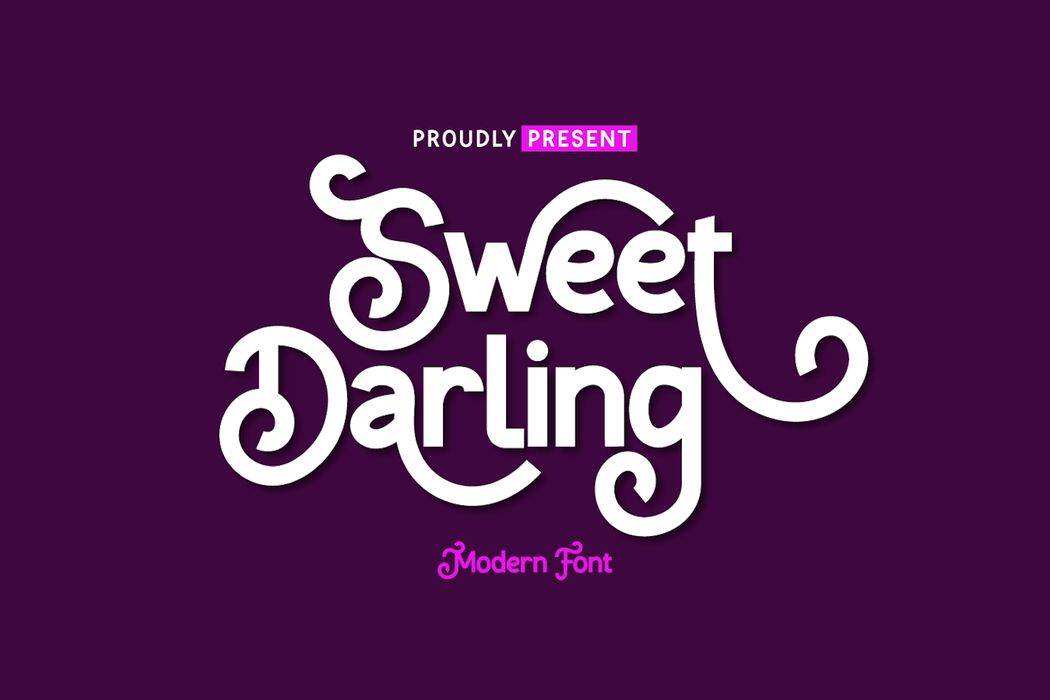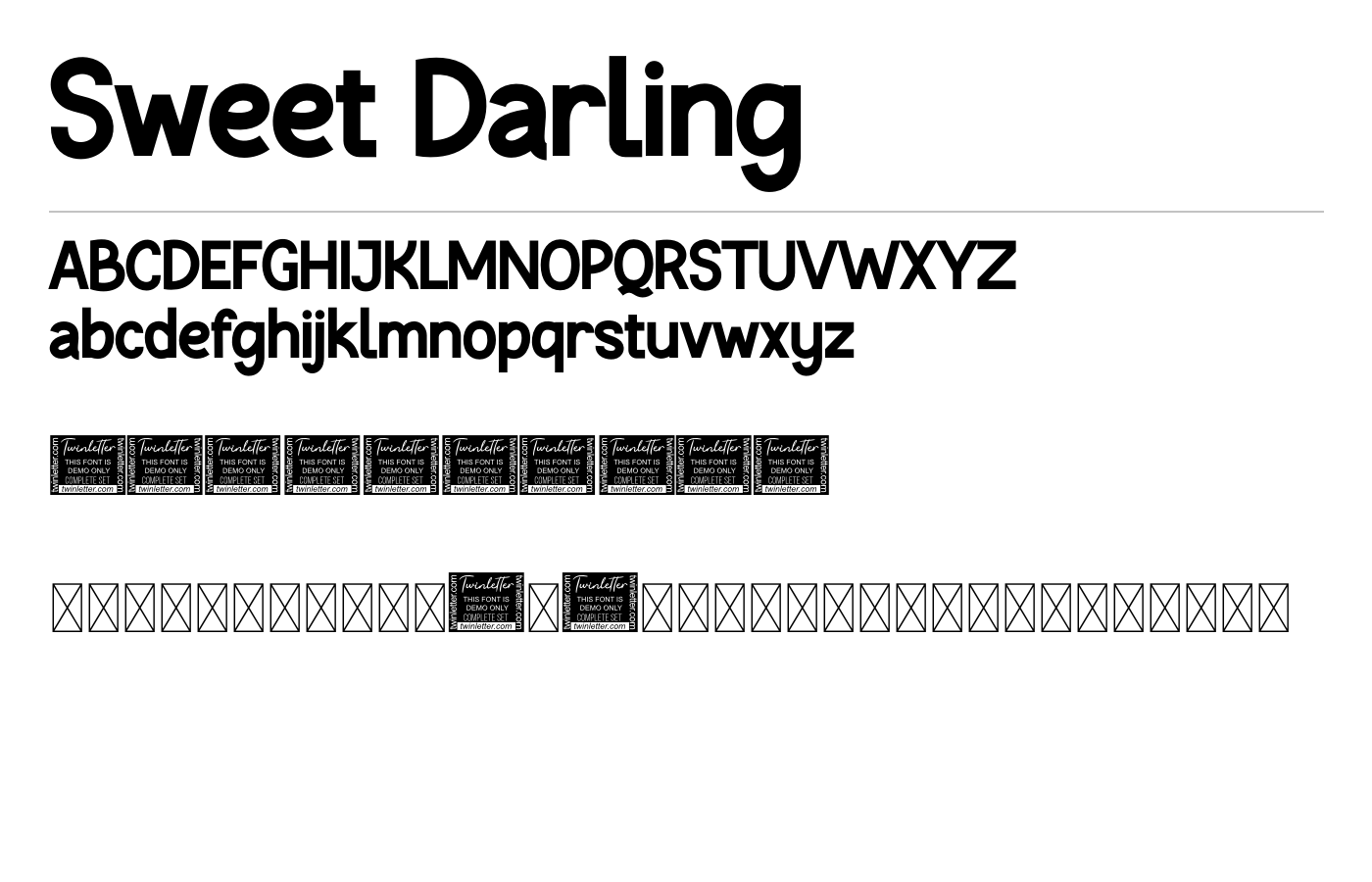
Sweet Darling is a bold, playful sans serif font with a strong, modern presence and rounded edges that add warmth and approachability. Its clean, slightly condensed letterforms with a medium x-height and smooth curves make it ideal for attention-grabbing headlines, branding, and packaging where a friendly yet confident vibe is desired. This font works well for creative projects and contemporary brands looking to balance professionalism with a touch of charm.
Sweet Darling Font
About Sweet Darling Font